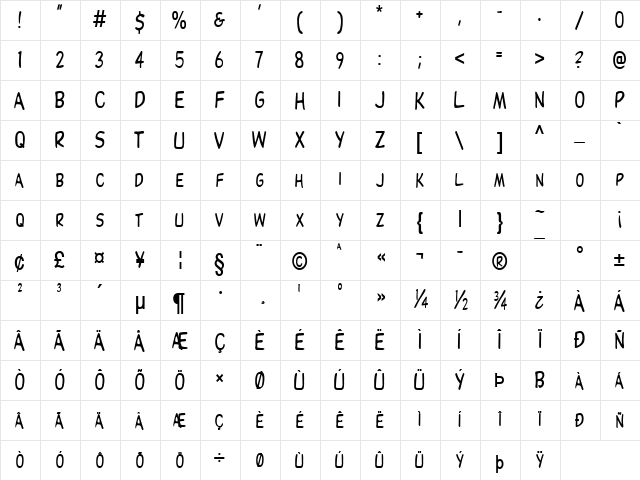
Elizabeth-Condensed Bold Font Preview
Design Context for Elizabeth-Condensed Typeface
Elizabeth-Condensed takes a measured approach to typography — its balanced proportions and neutral character make it a reliable workhorse for both digital and print work. Its bold stroke weight gives it real presence on the page. The condensed width makes it efficient for tight spaces without sacrificing legibility.